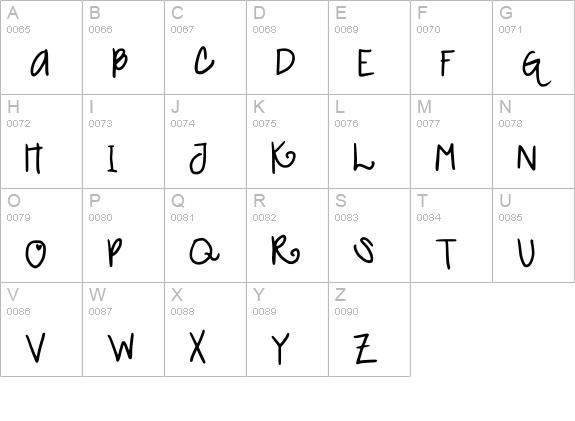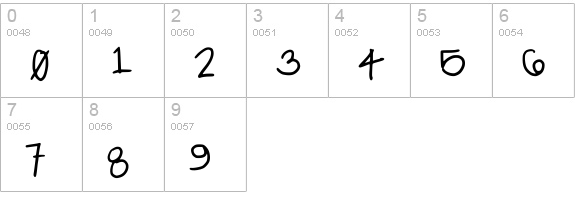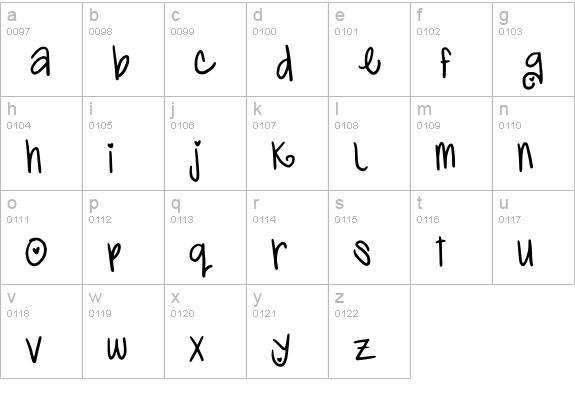
Cutie Pop Font Details
Cutie Pop font is a whimsical and playful typeface that exudes charm and sweetness. With its rounded edges and bubbly letters, this font is perfect for adding a touch of fun to your designs. Whether you're creating posters, invitations, or social media graphics, Cutie Pop will surely make your text stand out. The best part? Cutie Pop font is available for free download at FontsMarket.com. You can easily access this delightful font and start using it in your projects without any cost. Don't miss out on the opportunity to add a touch of cuteness to your designs with Cutie Pop font, available for free at FontsMarket.com.